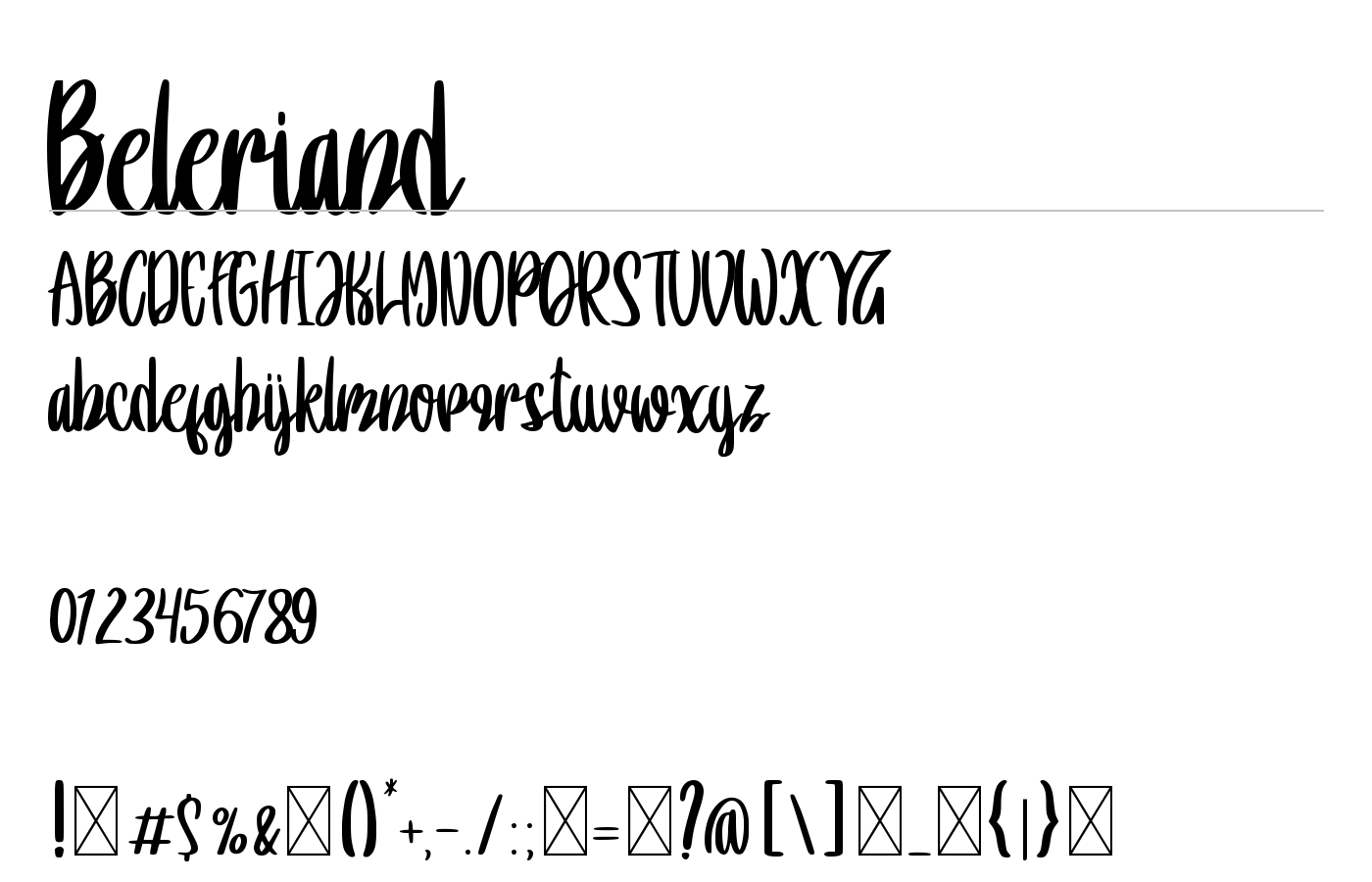
Beleriand is a tall, narrow script font with a playful and hand-drawn feel, featuring smooth, flowing strokes and slightly irregular letterforms that add a charming, personal touch. Its condensed style and friendly character make it ideal for creative projects like invitations, branding, and casual headlines where a whimsical yet readable font is desired. This font’s artistic vibe works well to convey warmth and individuality in designs seeking a lively, approachable personality.
Beleriand Font
About Beleriand Font